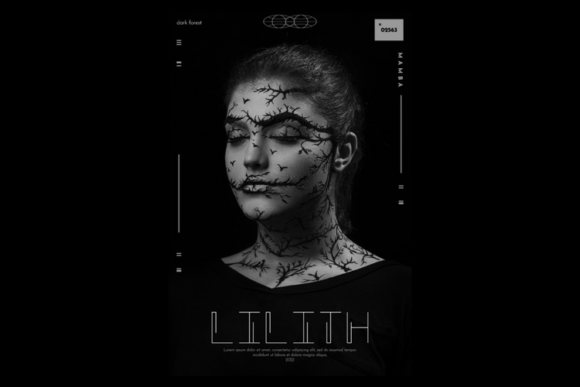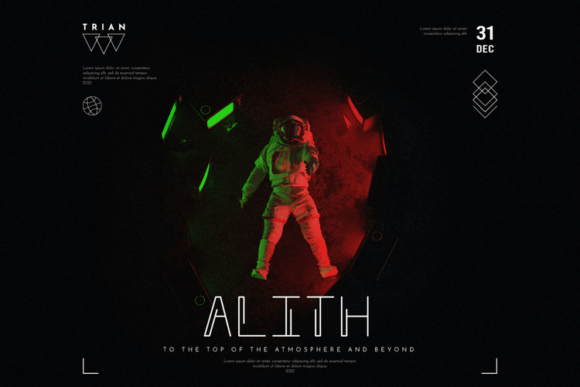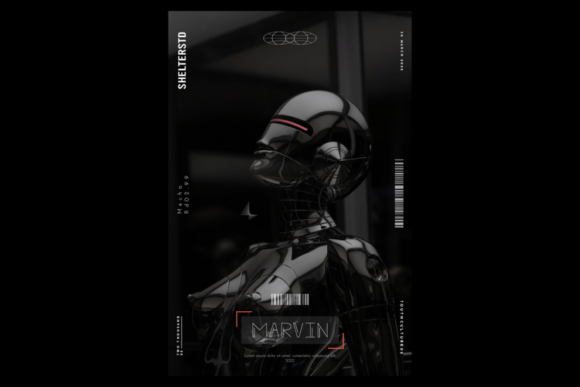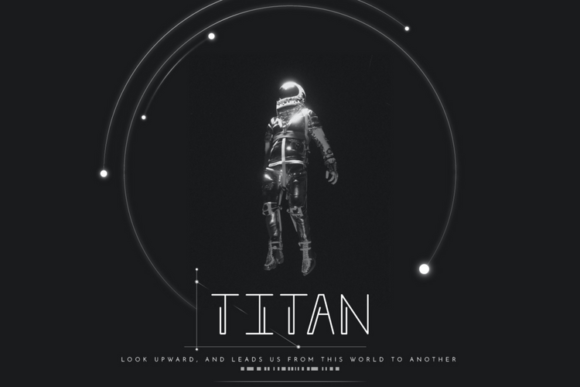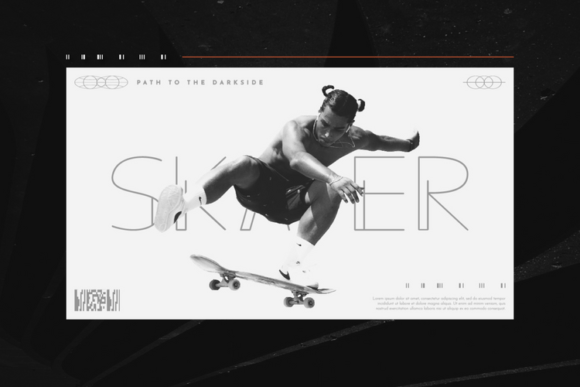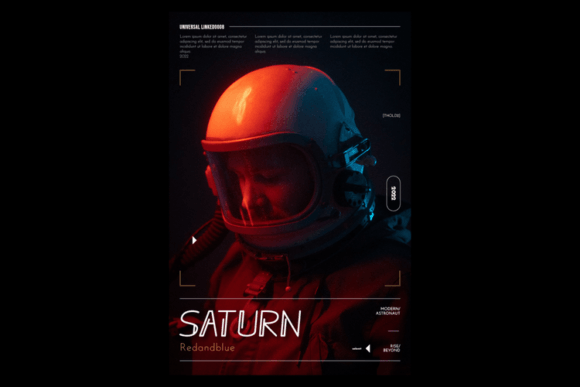
Ghaida Font: The Ultimate Display Font for Creative Designs
In the world of typography, fonts play a crucial role in conveying the tone and personality of a design. For designers and crafters, finding the perfect font can be a daunting task. However, if you’re looking for a cool and aesthetically pleasing display font, look no further than Ghaida. This versatile font is perfect for a wide range of design projects, from bold headlines to eye-catching posters.
The Charm of Ghaida Font
Ghaida font boasts a casual charm that makes it appear wonderfully down-to-earth and readable. Its unique character set and flowing lines give it a distinctive look that’s both modern and elegant. Whether you’re designing a logo, brochure, or website, Ghaida font is sure to make your project stand out. Its casual yet sophisticated vibe makes it perfect for a wide range of applications, from fashion and lifestyle brands to food and beverage companies.
One of the best things about Ghaida font is its incredible versatility. This font can be used in a variety of contexts, from busy backgrounds to standalone headlines. Its clear and readable design ensures that your message gets across, no matter where it’s used. Whether you’re creating a bold and eye-catching poster or a subtle yet effective brand logo, Ghaida font is the perfect choice.
Key Features of Ghaida Font
- Cool and Aesthetically Pleasing: Ghaida font has a unique and stylish design that’s sure to turn heads.
- Casual Charm: Its casual vibe makes it perfect for designs that require a friendly and approachable tone.
- Readable: Ghaida font is designed to be clear and readable, even in small sizes.
- Versatile: Use it for a wide range of design projects, from logos and brochures to posters and websites.
How to Use Ghaida Font in Your Designs
Using Ghaida font in your designs is easy. Here are a few tips to get you started:
- Pair it with Other Fonts: Ghaida font pairs well with a variety of other fonts. Try pairing it with a clean sans-serif font for a bold and eye-catching look.
- Use it for Headlines: Ghaida font is perfect for bold and eye-catching headlines. Use it to grab attention and draw your audience in.
- Experiment with Colors: Ghaida font looks great in a variety of colors. Experiment with different colors and combinations to find the one that works best for your design.
Why Designers and Crafters Love Ghaida Font
Designers and crafters love Ghaida font for its unique character and versatility. Here are a few reasons why:
- Easy to Read: Ghaida font is designed to be clear and readable, making it perfect for designs that require a lot of text.
- Highly Versatile: Use Ghaida font for a wide range of design projects, from logos and brochures to posters and websites.
- Unique Character: Ghaida font has a distinctive look that’s both modern and elegant.
In conclusion, Ghaida font is a cool and aesthetically pleasing display font that’s perfect for creative designs. Its casual charm, readability, and versatility make it a great choice for designers and crafters. Whether you’re designing a logo, brochure, or website, Ghaida font is sure to make your project stand out. So why wait? Give Ghaida font a try today and see the difference it can make in your designs!